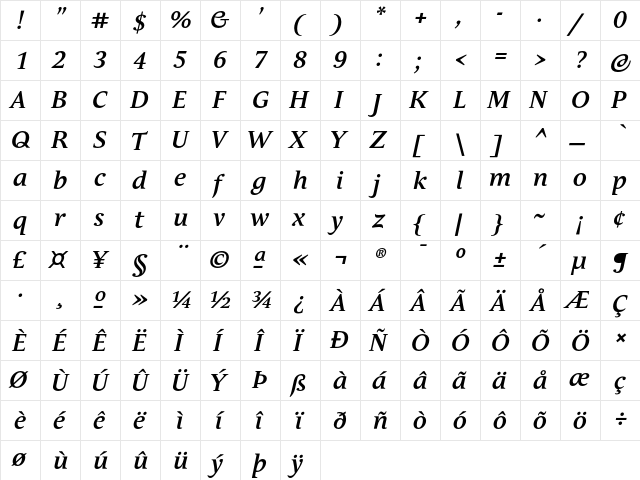
Andulka Book Pro Bold Italic
Design Context for Andulka Book Pro Typeface
Andulka Book Pro offers clean, dependable letterforms without strong stylistic allegiance, making it a practical choice for designers who need flexibility. Its italic angle brings a sense of urgency and motion to the letterforms. The heavy weight commands attention and anchors typographic hierarchies.
Pro Tip: Use Andulka Book Pro for emphasis, pull quotes, and subheadings where its slanted energy can add rhythm to the layout.